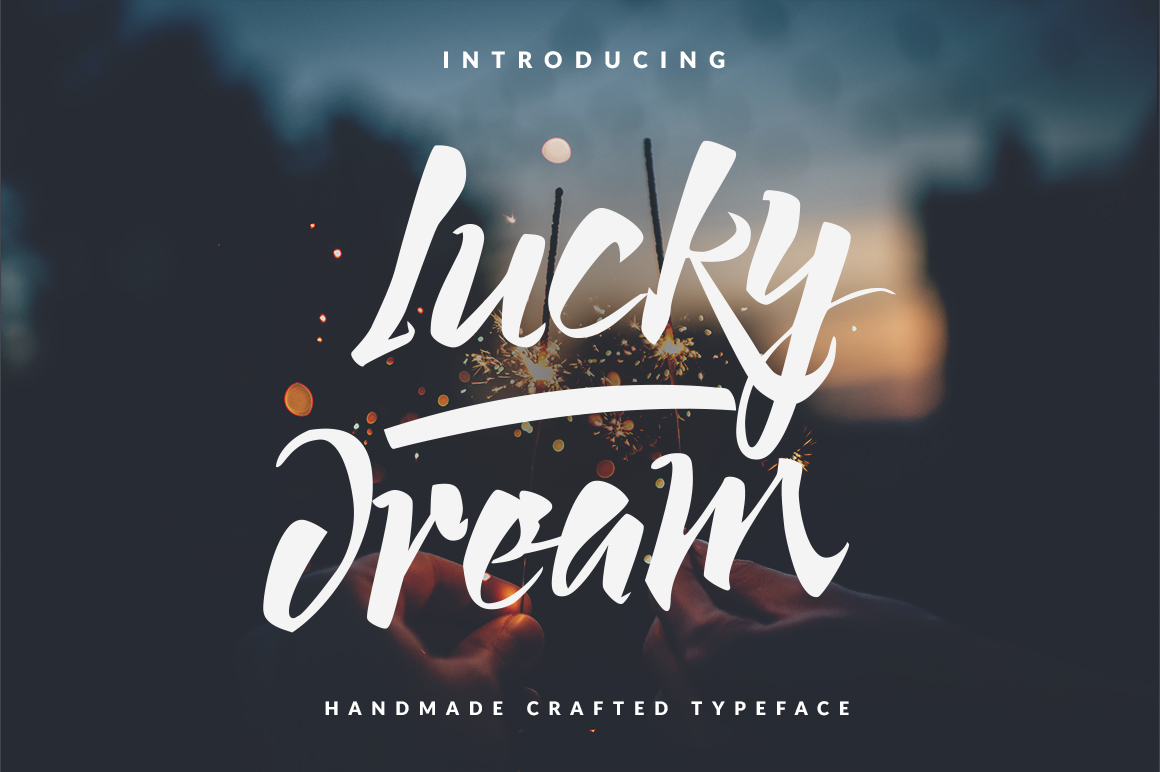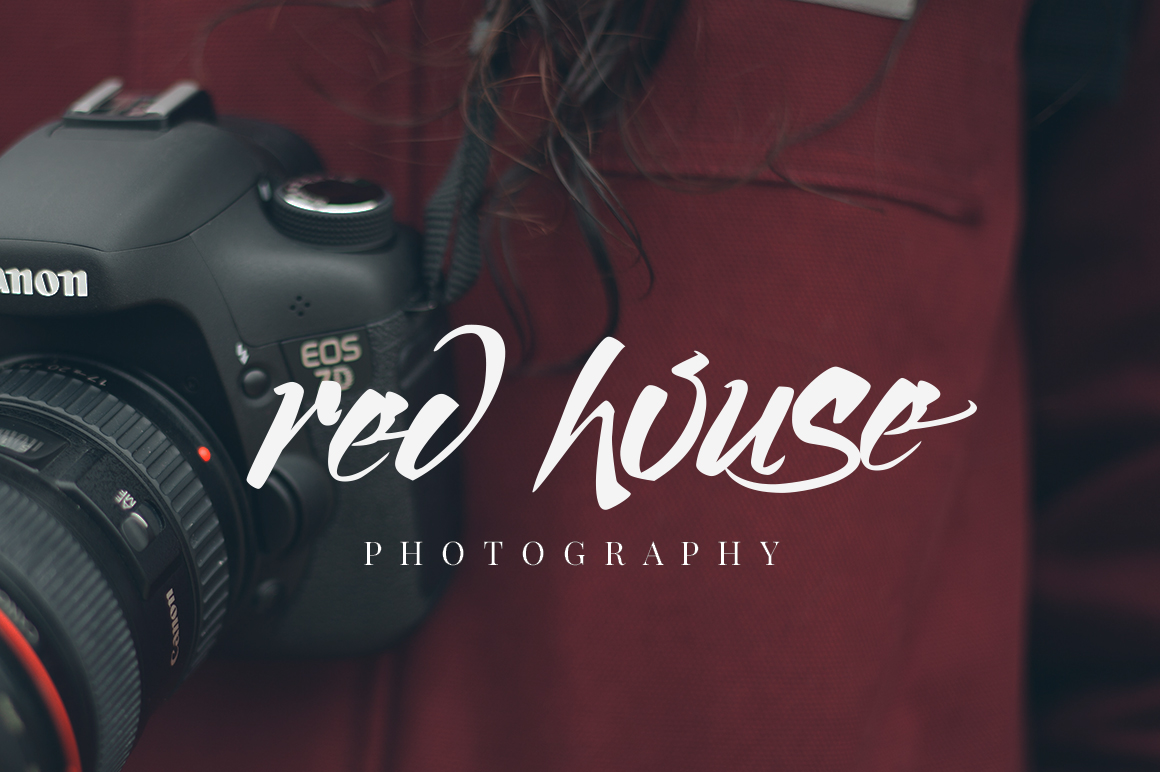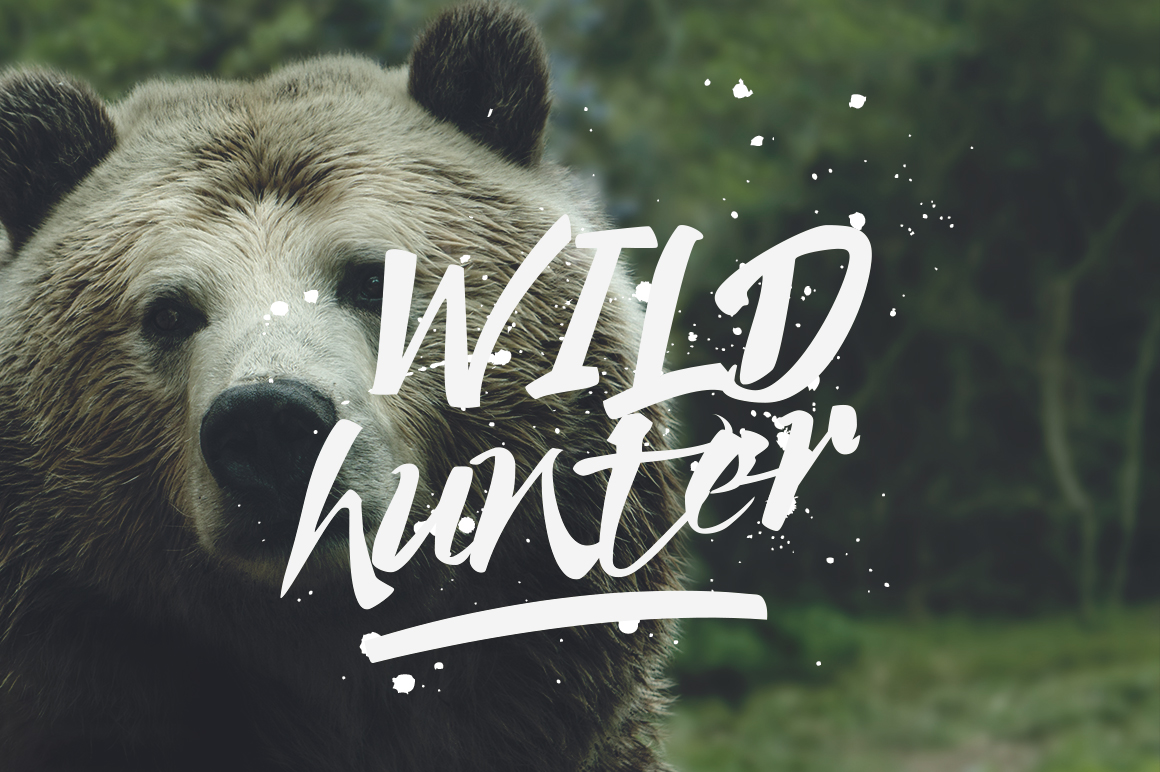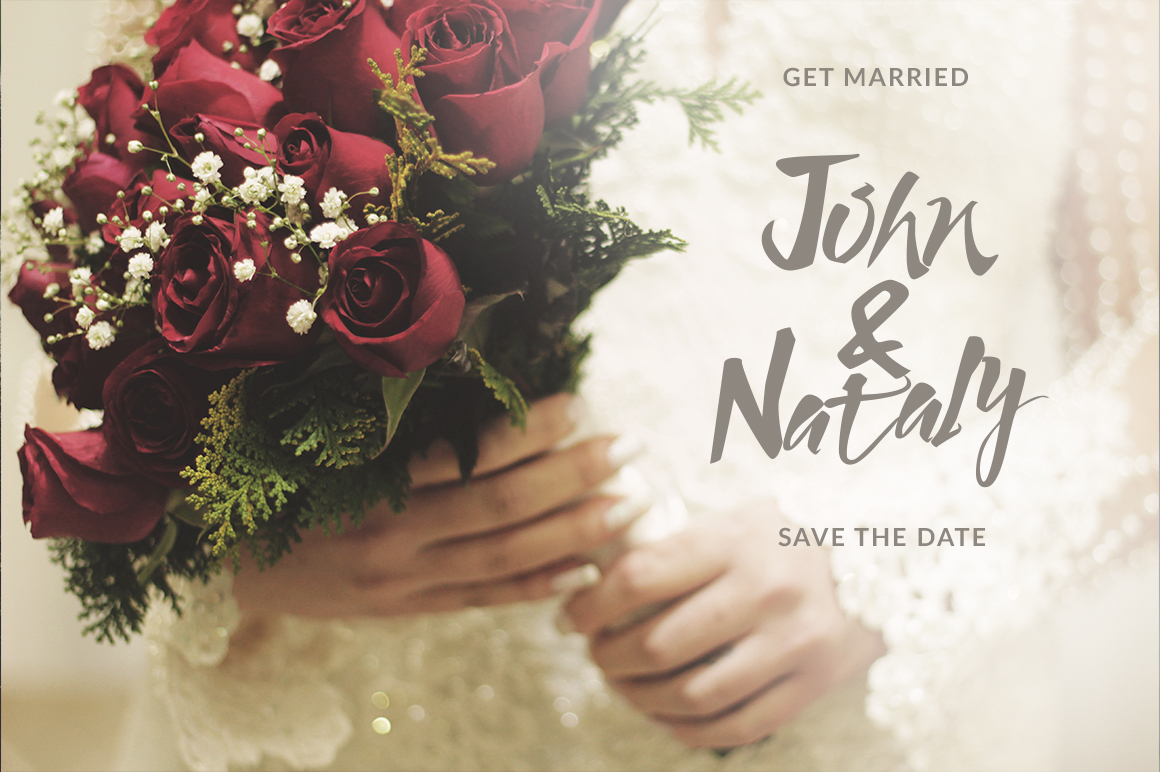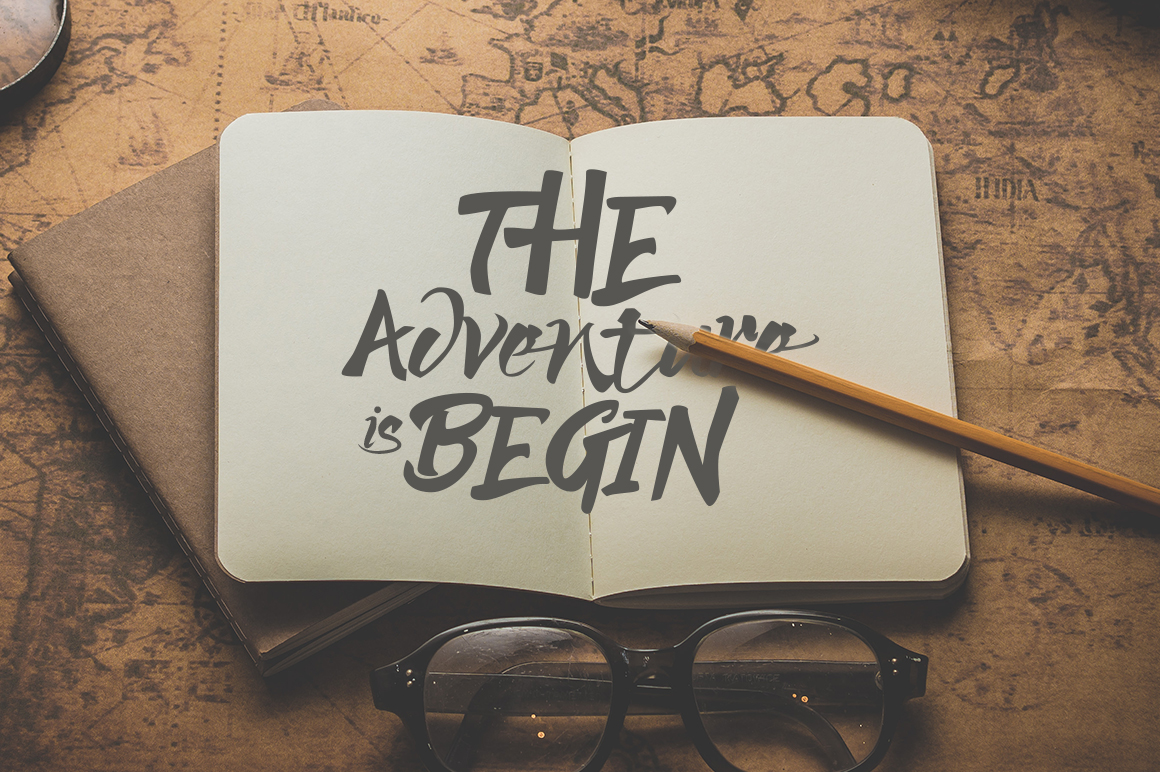
Lucky Dream Font
About Lucky Dream Font
The Lucky Dream font is a handmade font that features a modern lettering style.
This fresh font gives off a happy vibe and is fun to work with. It offers endless possibilities and can be combined easily with serif and sans serif fonts.